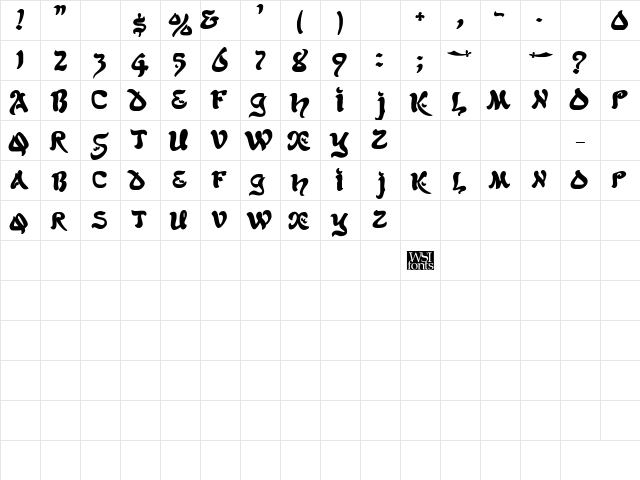
Scimitar Bold
Design Context for Scimitar
Scimitar is a composed and adaptable typeface that performs quietly and consistently across a wide range of design contexts. Its bold stroke weight gives it real presence on the page.